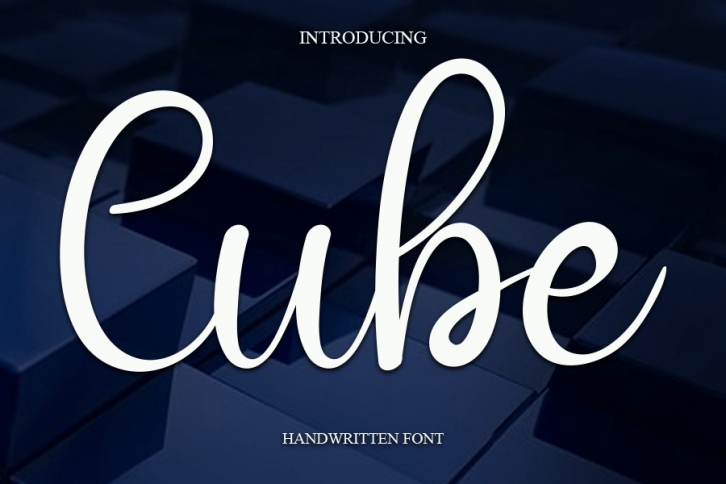
Cube is a simple and adaptable script font. Add this cute-looking font to each of your love letters, wedding invitations, or favorite design ideas, and you will be astounded by the outcome.